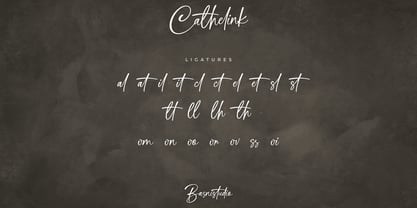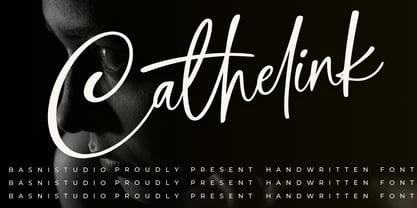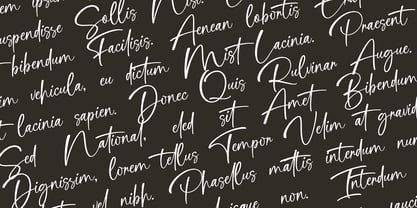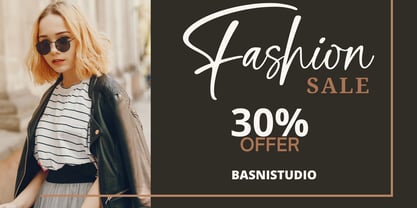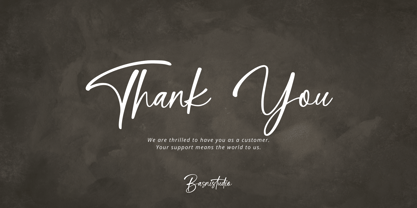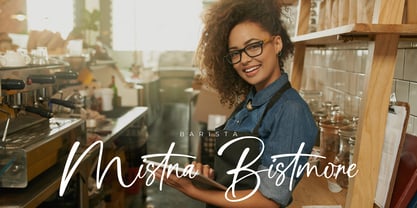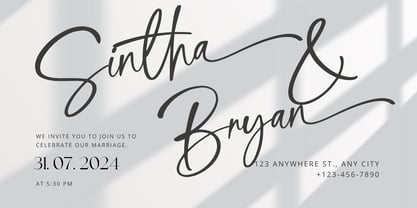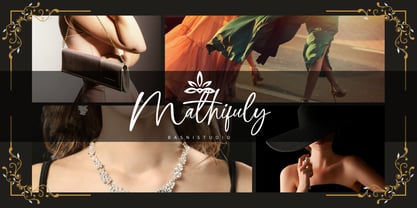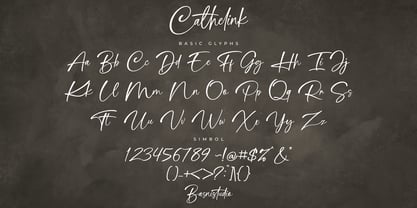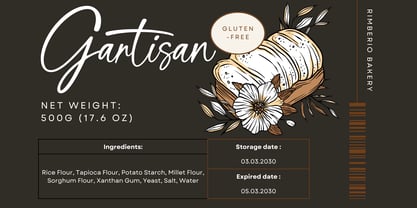
Cathelink
by Basnistudio
The Cathelink Font Family was designed by Bery Arisandi and published by Basnistudio. Cathelink contains 1 styles.
The Perfect Handwritten Touch for Your Designs Introducing Cathelink a Handwritten Font that adds a elegant, versatile touch to everything from branding and social media to invitations and packaging. Elegant & Versatile – Perfect for logos, quotes, greeting cards, and more Authentic Handwritten Feel – Created with real pen strokes for a natural look Easy to Use – Works seamlessly with all major design programs Whether you’re building a powerful brand identity or crafting a standout logo, Cathelink gives you the creative edge you need. What’s Included: Uppercase & lowercase letters Ligature Numbers & punctuation Swashes Multilingual Support ( Support for 90 languages ) If you have any questions please don’t hesitate to contact me & Visit our site Basnistudio Thank you Very Much